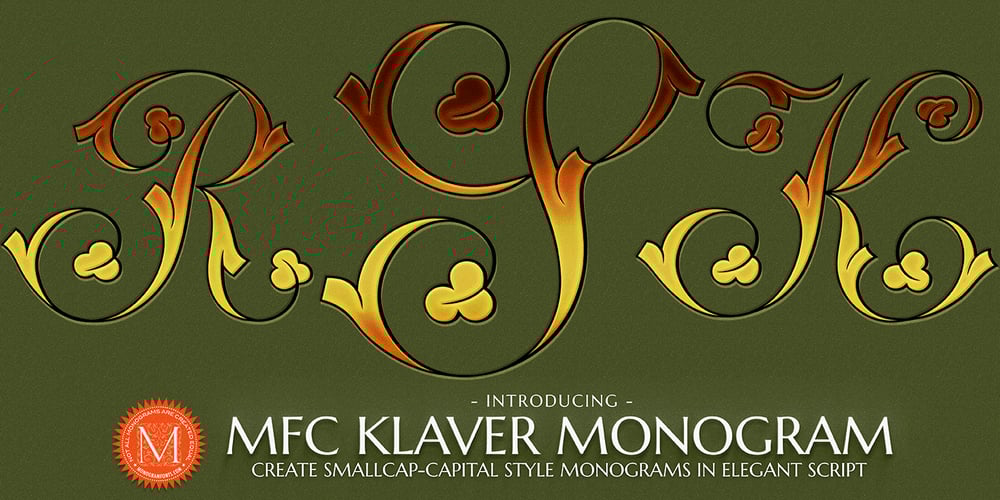
MFC Klaver Monogram Font Family was designed by Jim Lyles, Brian J. Bonislawsky and published by Monogram Fonts Co.. MFC Klaver Monogram contains 4 styles and family package options. The source of inspiration for Klaver Monogram is a delightfully elegant initial letterset adorned with clover tipped flourishes from a vintage embroidery publication. Originally intended to adorn handkerchiefs and other linens, this digital revival opens it up to a whole new realm of possibilities. This is one of many monogram designs from the late 1800’s to early 1900’s that is loaded with panache. Download and view the MFC Klaver Monogram Guidebook if you would like to learn a little more.